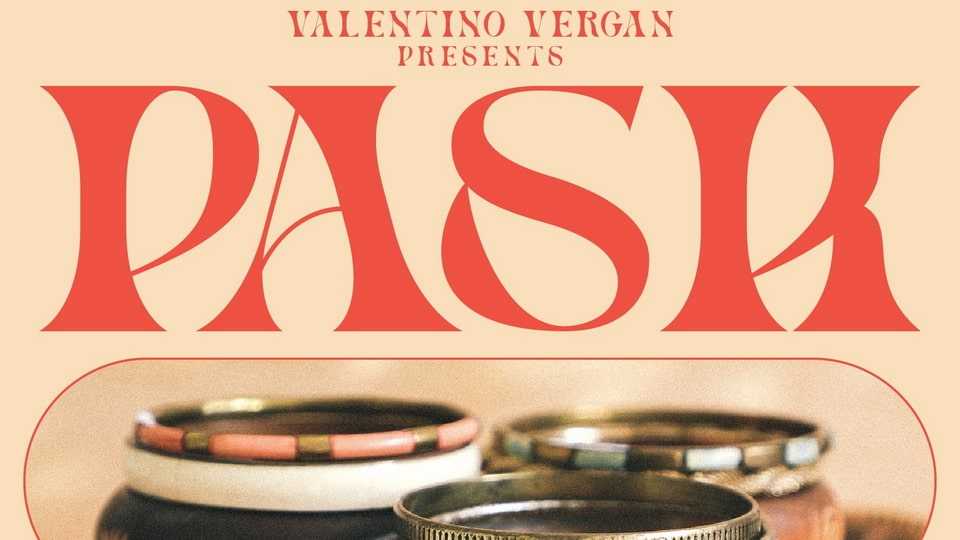
Download Pask font, a retro inspired variable typeface. Pask has a high-contrast and a thin hairline, this gives the typeface a bold and retro look.
Designer: Valentino Vergan